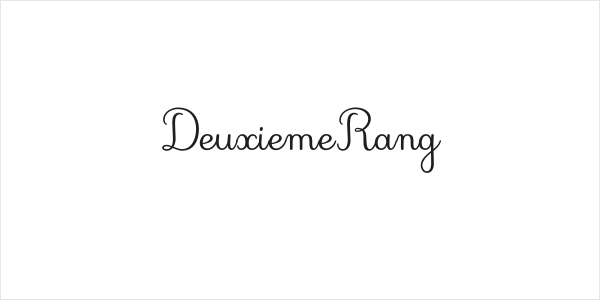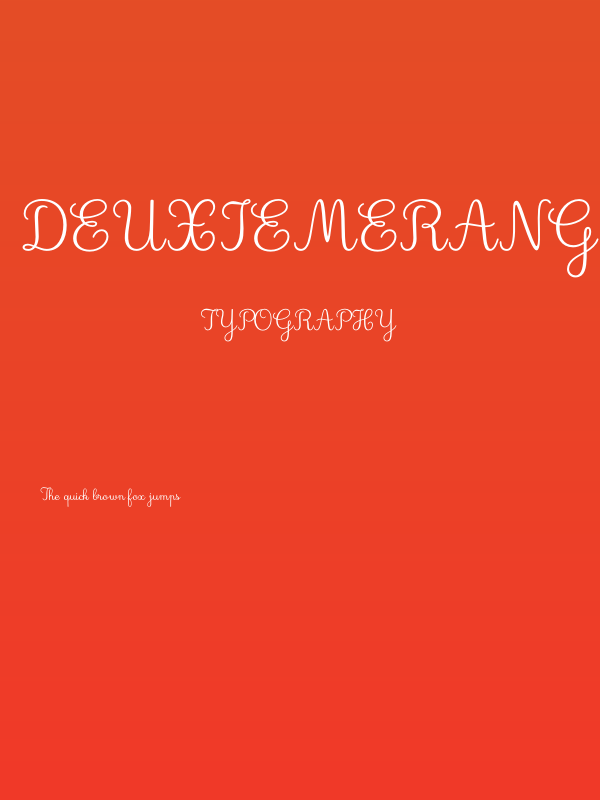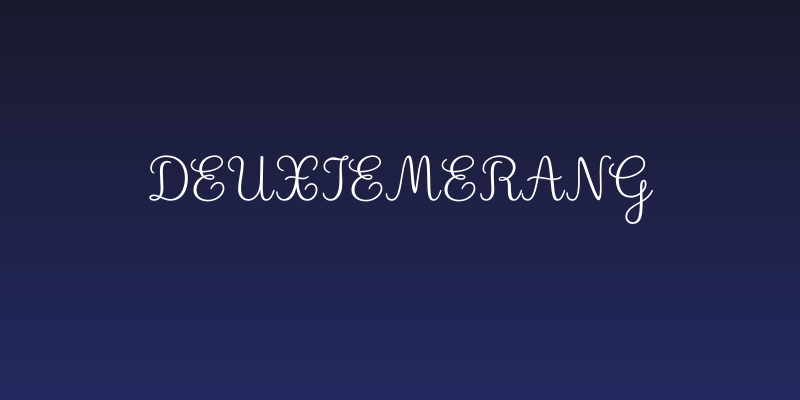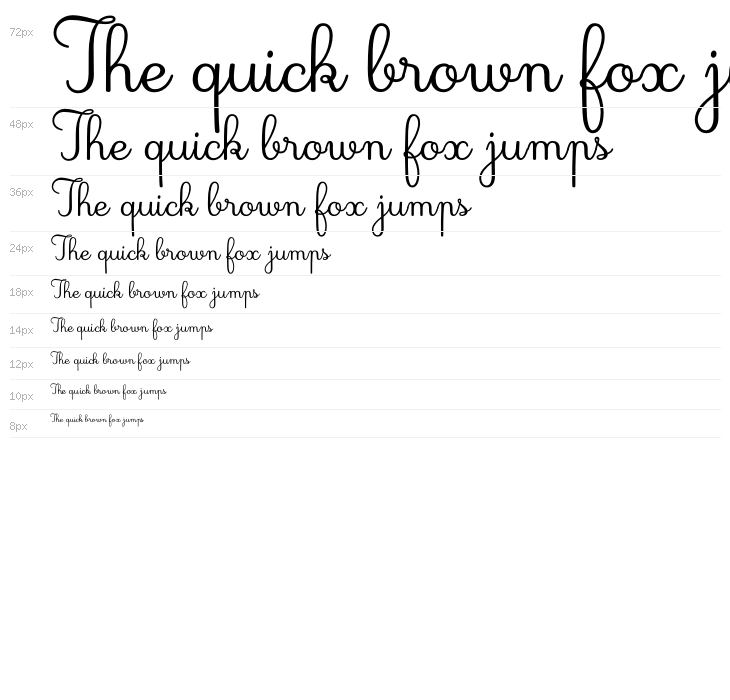
DeuxiemeRang Font
DeuxiemeRang Description
This elegant script font features a flowing, cursive style with smooth, rounded edges and consistent stroke widths. The uppercase letters are gracefully connected, while the lowercase letters exhibit a charming looped design, enhancing the font's fluidity. Numbers and special characters maintain the same aesthetic, ensuring a cohesive look across all text elements. The font's design is both sophisticated and playful, making it suitable for a variety of creative applications. Its legibility is maintained despite the decorative elements, making it versatile for both digital and print media.
| Use Case | Logos, Invitations, Decorative Text |
| Proposed Projects | Ideal for wedding invitations, greeting cards, elegant branding, and decorative quotes. |